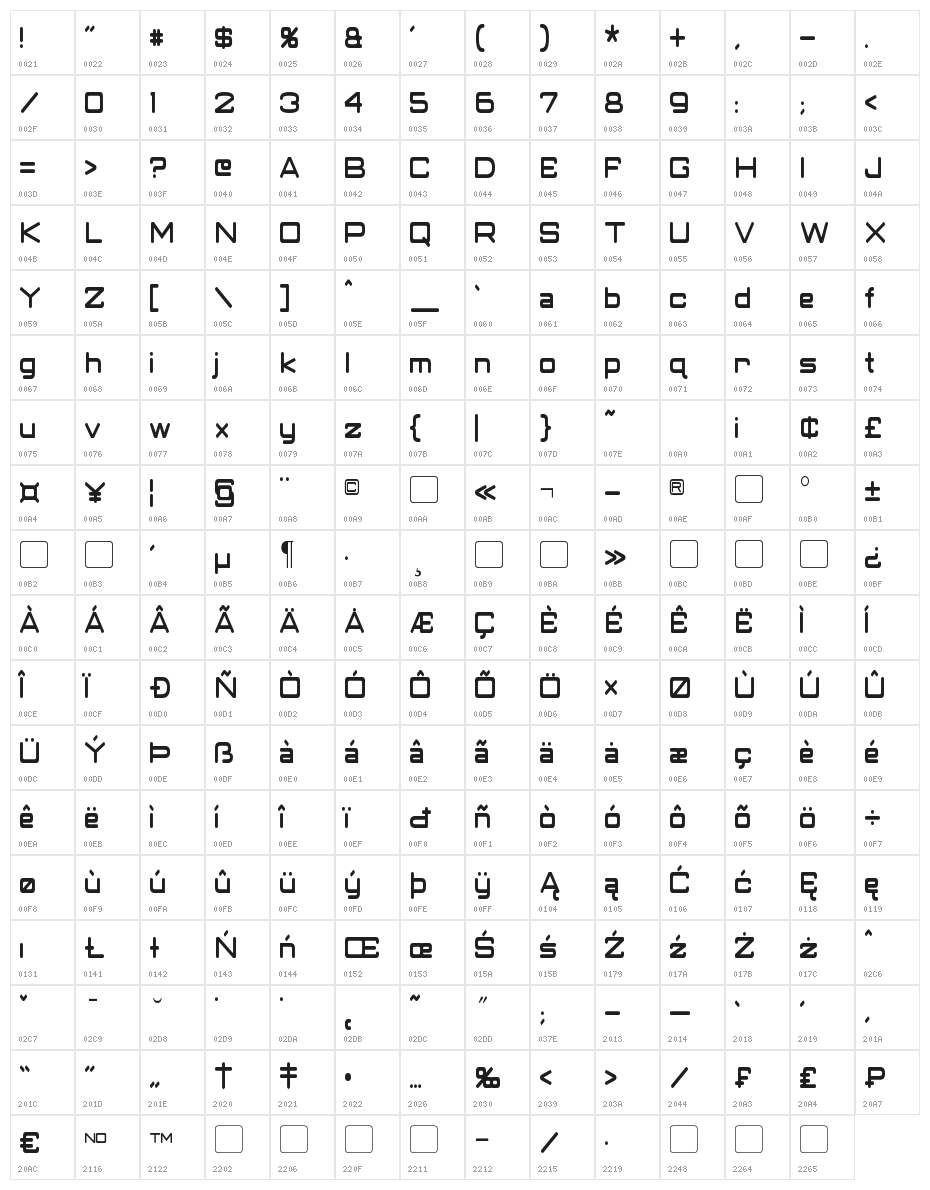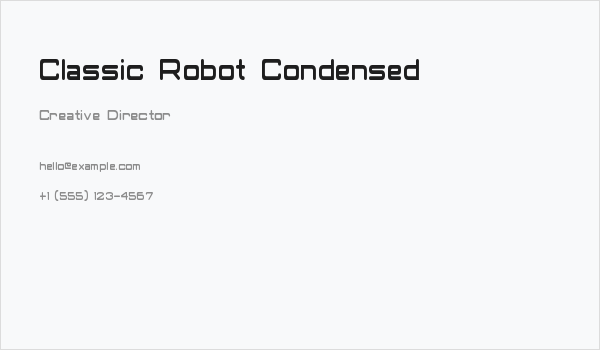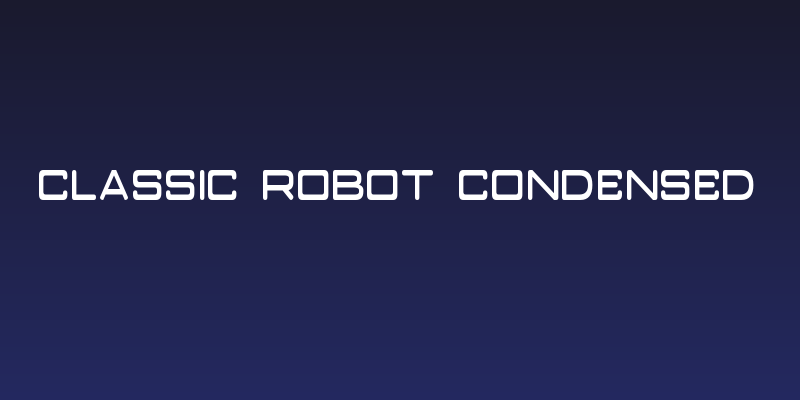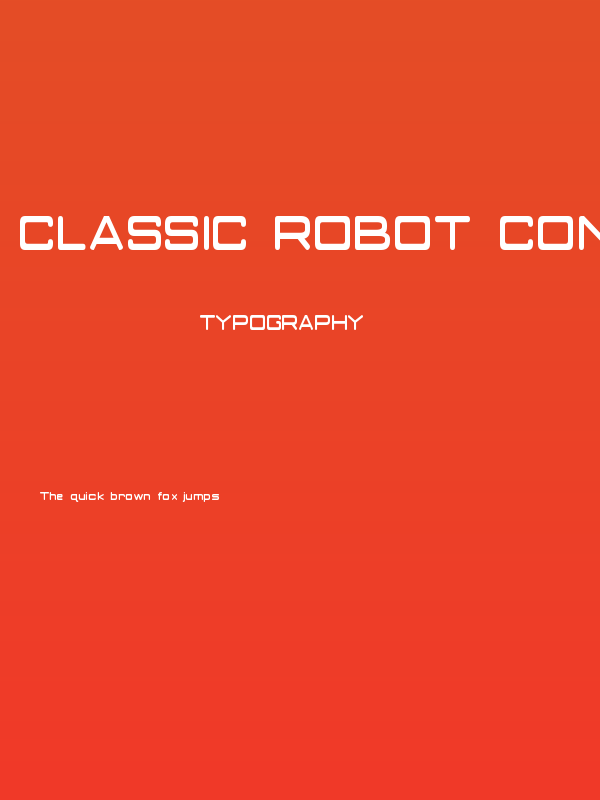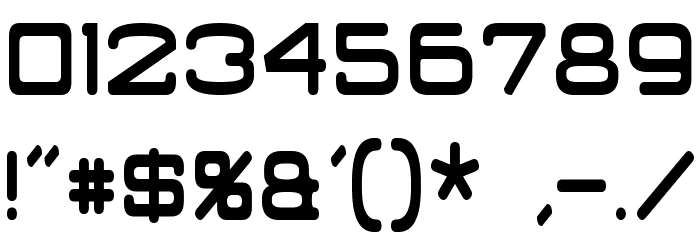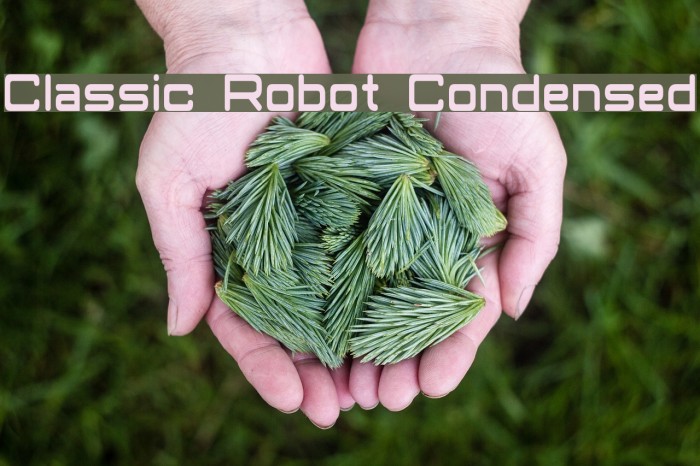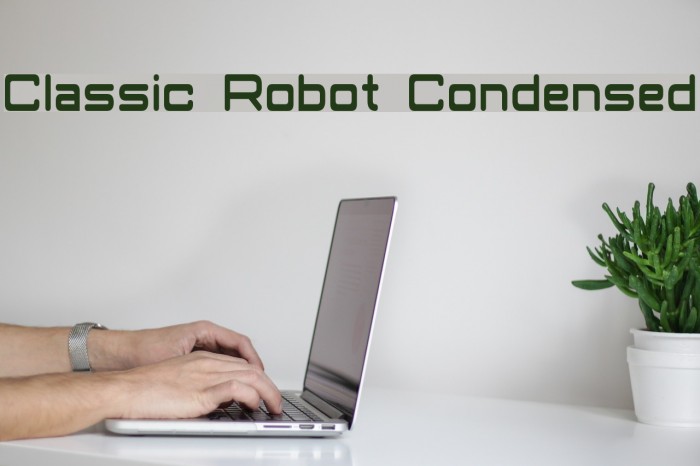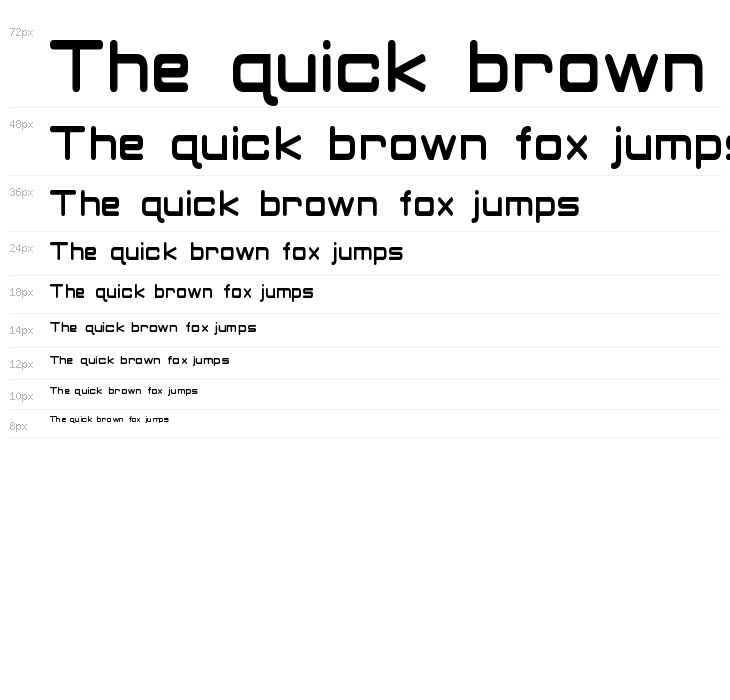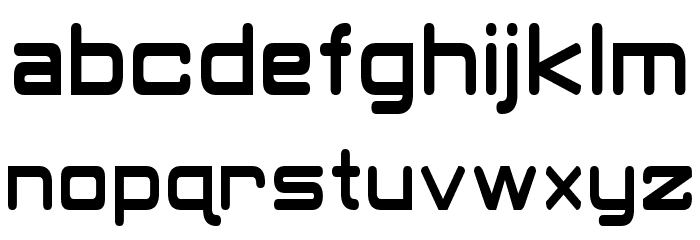
Classic Robot Condensed Font
Classic Robot Condensed Description
This font features a futuristic and mechanical aesthetic, characterized by its rounded edges and uniform stroke width. The design is clean and minimalistic, with a condensed structure that gives it a compact appearance. The uppercase and lowercase letters maintain a consistent style, with smooth curves and a geometric feel. The numerals and special characters are designed to match the overall theme, providing a cohesive look across all glyphs. Its modern and tech-inspired design makes it suitable for projects that require a sleek and contemporary touch.